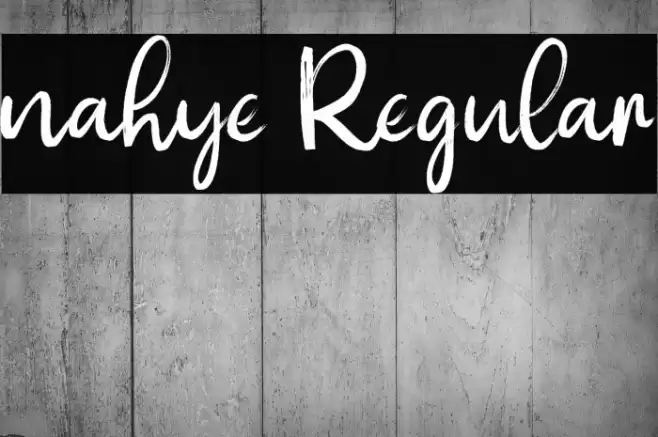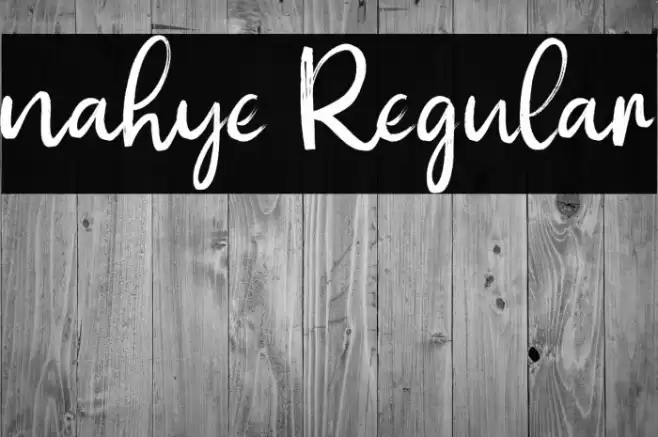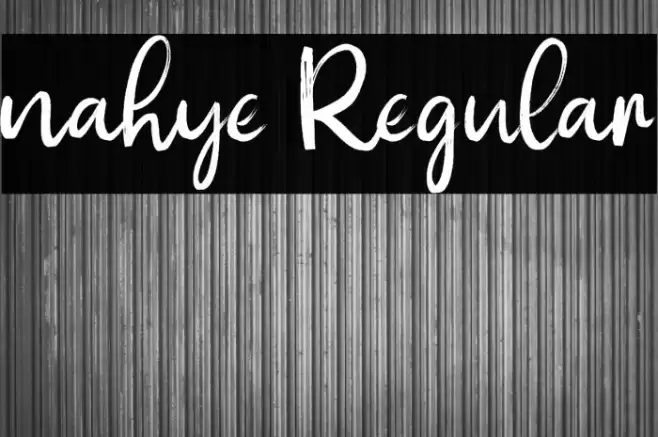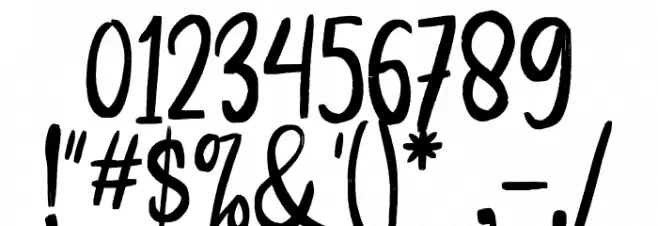
nahye Regular Font
nahye Regular Description
This font features a lively and energetic script style, characterized by its flowing, cursive letters that mimic the fluidity of handwriting. The uppercase letters are bold and expressive, with varying stroke widths that add a dynamic feel. The lowercase letters maintain a consistent rhythm, with loops and curves that enhance its handwritten appearance. Numbers and special characters are designed with the same playful and artistic flair, making them stand out. The overall look is both casual and elegant, suitable for projects that require a personal touch.
A lively, handwritten script font with dynamic strokes and a playful style from Uncategorized fonts.
- Proposed Projects: Ideal for greeting cards, invitations, personal branding, and creative projects that require a personal, artistic touch.
- Overall Style: Casual, Artistic
- Use Case: Logos, Invitations, Personal Branding